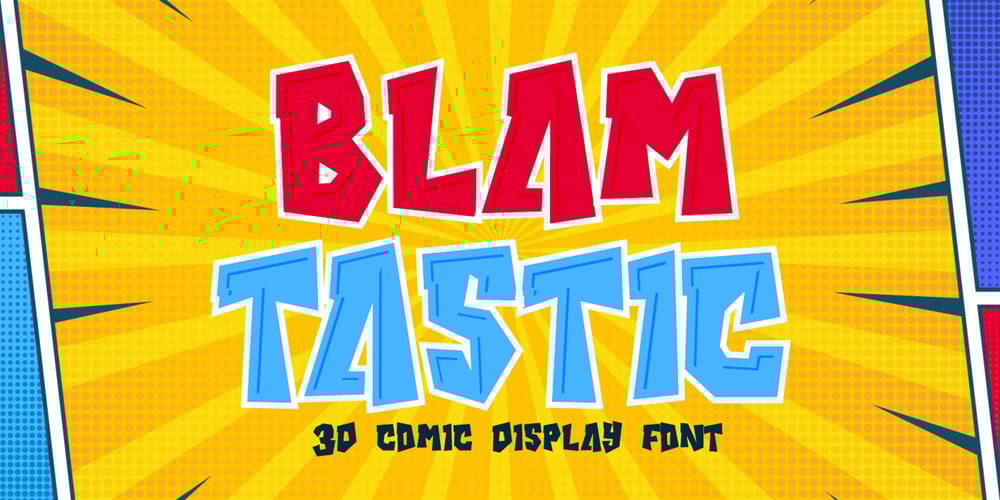
Blamtastic 3d Comic Display Font Family was designed by Sipanji and published by Sipanji21. Blamtastic 3d Comic Display contains 3 styles and family package options. “Blamtastic” is a 3D display font designed with a comic theme and sharp characters. This font offers three distinct styles: solid, inner shadow, and outline. Fonts with multiple styles like this are ideal for creating depth and visual interest in text.The solid style provides a bold and straightforward appearance, while the inner shadow style adds depth by giving the characters a three-dimensional effect. The outline style outlines the characters, emphasizing their shape against the background.With its comic-inspired theme, sharp characters, and various styles, “Blamtastic” is suitable for a wide range of design projects that require a playful and attention-grabbing typographic style. It can be used effectively in comic books, posters, titles, or any design where a bold, dynamic, and multi-dimensional font is needed to create an impactful visual presence.